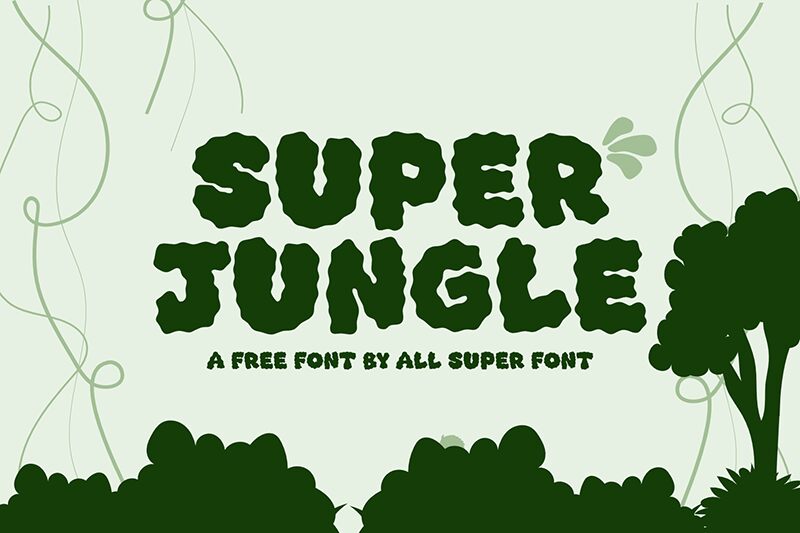
Super Jungle
Super Jungle font by fsuarez913 is a bold display typeface that instantly draws attention to the eye with its rugged, adventurous design. The organic, textured features make for dense elements where each character appears to be filled with unique ornaments and decorations at all edges.
Titles, highlight text elements within magazines, book covers, advertising like posters and flyers are only some suggested commercial uses. The free display font is equally suitable for branding purposes like creating logo designs for your digital platforms such as social media networks.